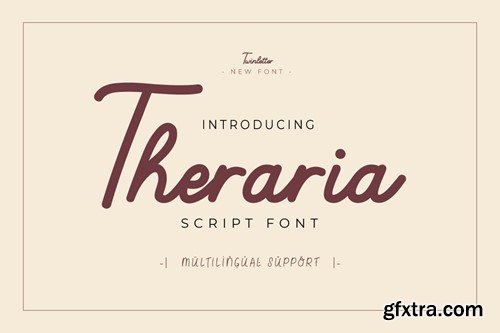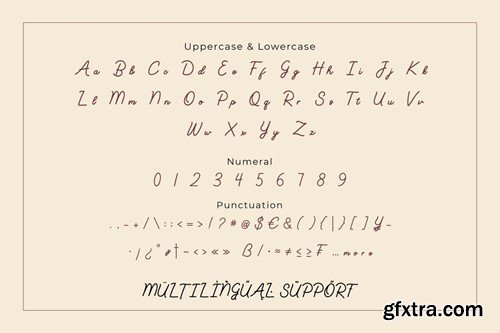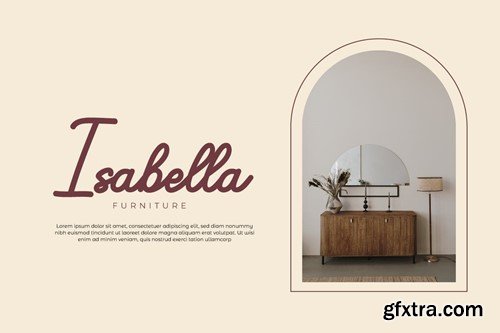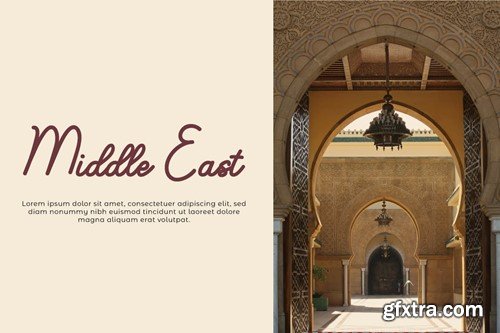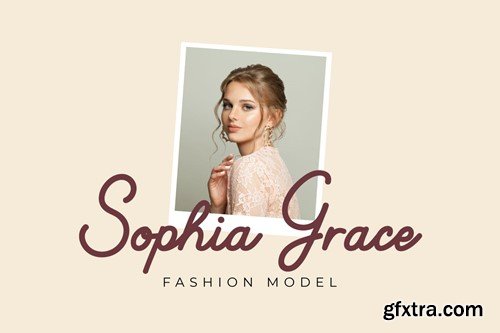
Theraria - 简线字体 KSNHKBK
Theraria - Script Monoline Font KSNHKBK
Theraria - Script Monoline Font
Weave the beauty of typography with Theraria, a monoline font that captivates with the softness of each curve of the letters. Designed with elegant precision, each character creates a flowing flow, bringing a timeless, contemporary touch to every design. Theraria is the perfect choice for branding projects, logo designs, or promotional materials, providing an unforgettable artistic touch. Bring monoline elegance to your work with Theraria, a font that inspires and elevates your brand image to a new level.